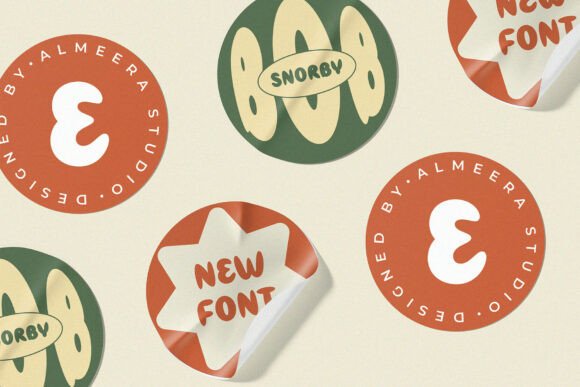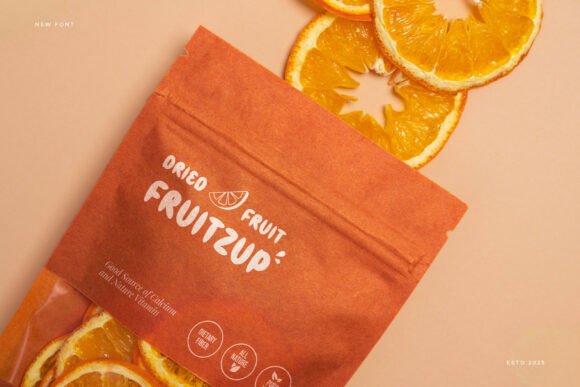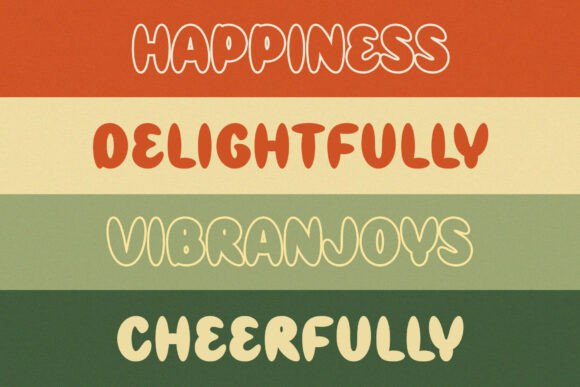
Introduction to Snorby Font
Do you remember the thrill of designing a project from scratch? The rush of excitement as you bring your creative vision to life? For many designers, it’s that spark of imagination that drives them to create something truly special. And when it comes to bringing that spark to the forefront, the right font can make all the difference.
That’s where the Snorby Font comes in – a fun and playful display font that’s sure to add a touch of whimsy to any creative project. With its soft curves and friendly character, Snorby Font is the perfect design resource for anyone looking to add a bit of personality to their work. Whether you’re designing for kids, packaging, posters, or social media, Snorby Font is the ideal choice for bringing a warm, approachable, and joyful vibe to your designs.
Key Features of Snorby Font
- High-quality, unique design perfect for creative projects requiring a distinctive touch.
- Includes a transparent background option, allowing for seamless integration into various design elements.
- Designed to be scalable, with a recommended size range of 12-72 points for optimal readability.
- Features a high resolution of 300 DPI, ensuring crisp and clear text display.
- Perfect for use in a variety of creative projects, including logos, graphics, and typography-based designs.
Honest Review: Snorby Font
As a designer, I’m always on the lookout for high-quality design resources that can elevate my creative projects. The Snorby Font caught my attention, and I was excited to dive in and see what it had to offer.
One of the things that stood out to me was the Snorby Font’s versatility. It’s available for free download and comes with a transparent background, making it easy to use in a variety of design scenarios. ✨
- Unique and modern aesthetic
- High-quality design with precise lines and curves
- Easy to use and customize
However, I did encounter some limitations with the Snorby Font. ⚠️ The font family is relatively small, with only a few weights and styles to choose from. This may limit its use in complex design projects that require a wide range of typography options.
Overall, I’m impressed with the Snorby Font’s design and functionality. While it may not be the most comprehensive font family, it’s a great resource for designers looking to add a touch of modernity to their creative projects. With its free download and transparent background, it’s definitely worth checking out.
The Snorby Font is a high-quality, free download that can elevate your creative project to the next level. With a transparent background, this font offers endless design possibilities.
Tips for Getting the Most Out of Snorby Font
Here are some tips for getting the most out of the Snorby Font:
- Use the font in combination with other design elements to create a cohesive look.
- Take advantage of the transparent background to create unique design effects.
The Snorby Font is ideal for a variety of creative projects, including:
- Business cards and letterheads Alternatives to Snorby Font